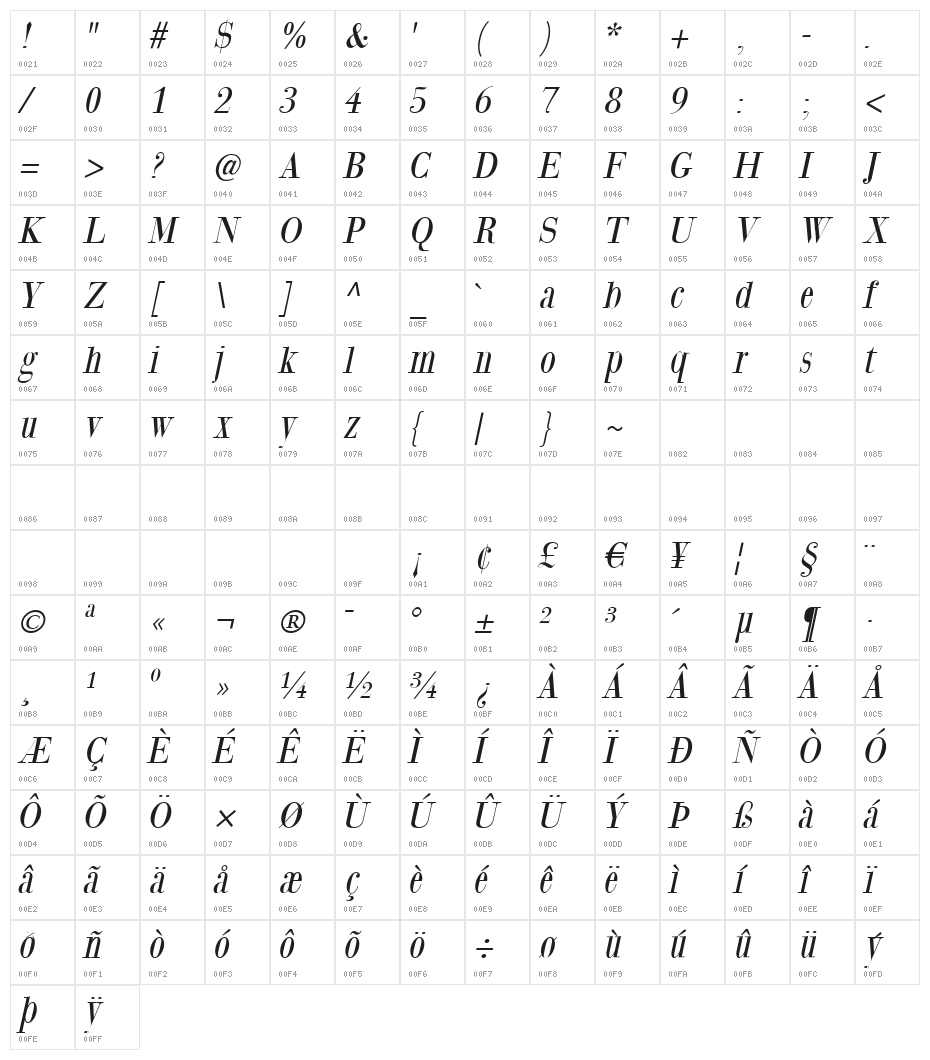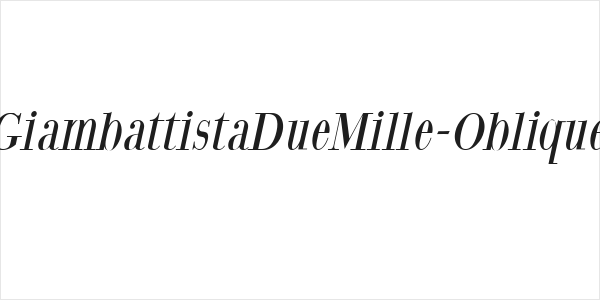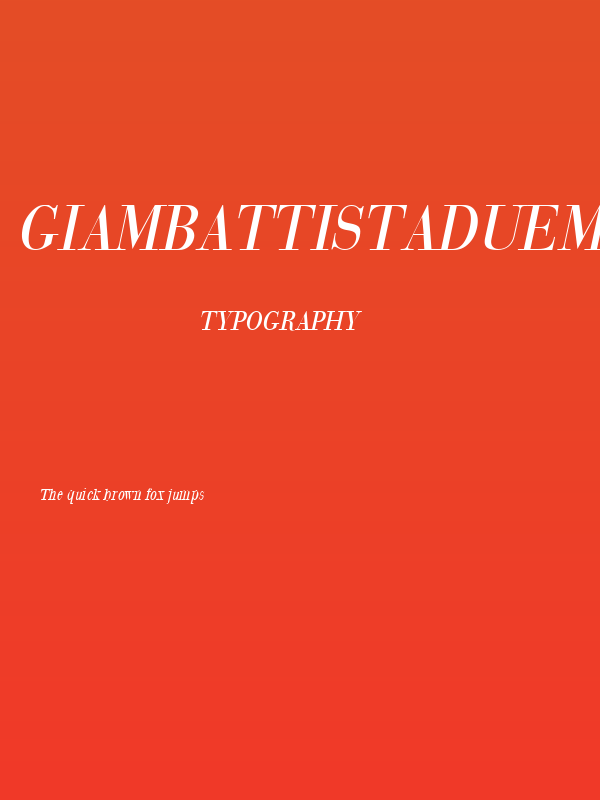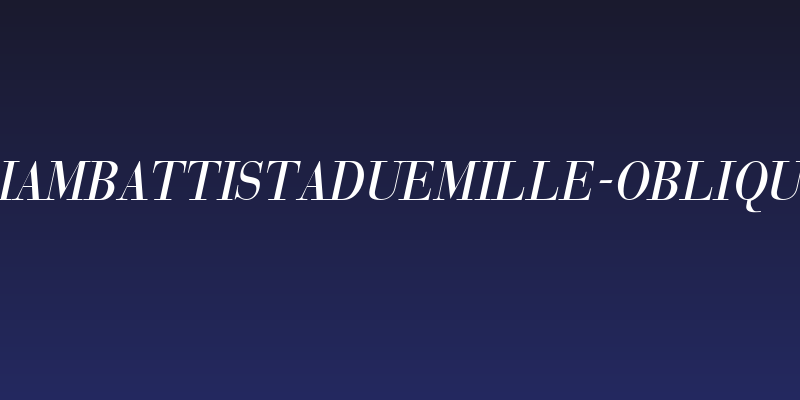
GiambattistaDueMille-Oblique Font
GiambattistaDueMille-Oblique Description
This font features an elegant and sophisticated design with a distinct oblique style, characterized by its slanted letters. The typeface exhibits a high contrast between thick and thin strokes, lending it a refined and classic appearance. The serifs are sharp and pronounced, adding to its formal and traditional aesthetic. The uppercase letters are tall and commanding, while the lowercase letters maintain a graceful flow. The numerals are well-proportioned, complementing the overall style. Special characters are thoughtfully designed, ensuring consistency across the typeface.
| Use Case | Headlines, Logos, Editorial design |
| Proposed Projects | Ideal for luxury branding, editorial design, wedding invitations, and high-end product packaging. |